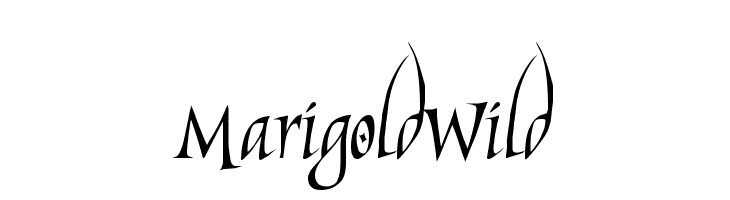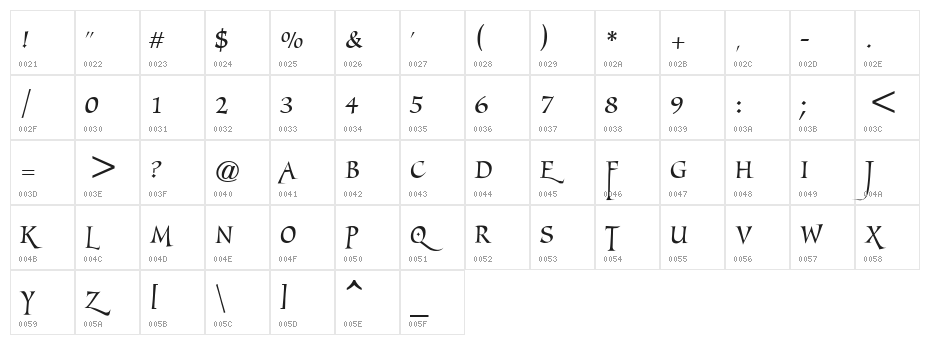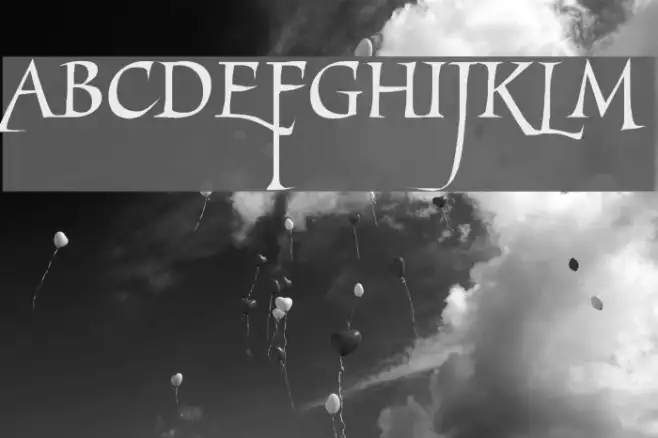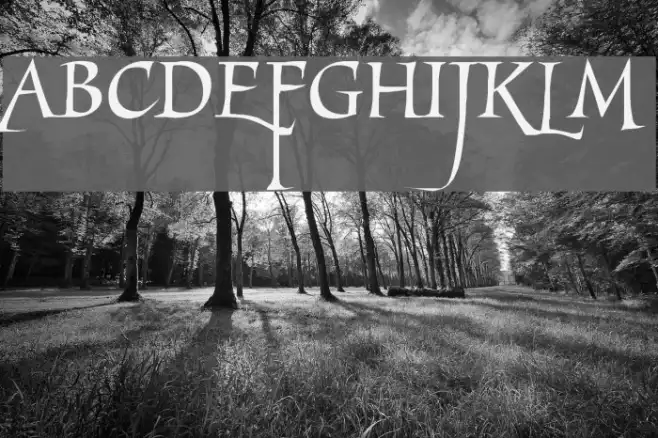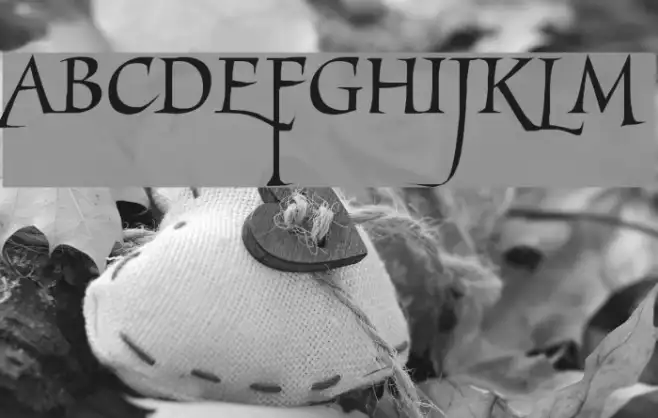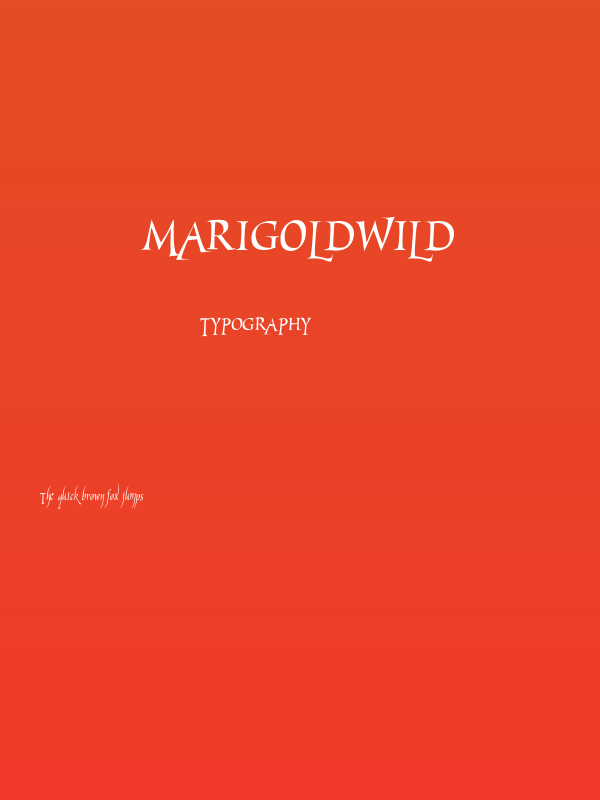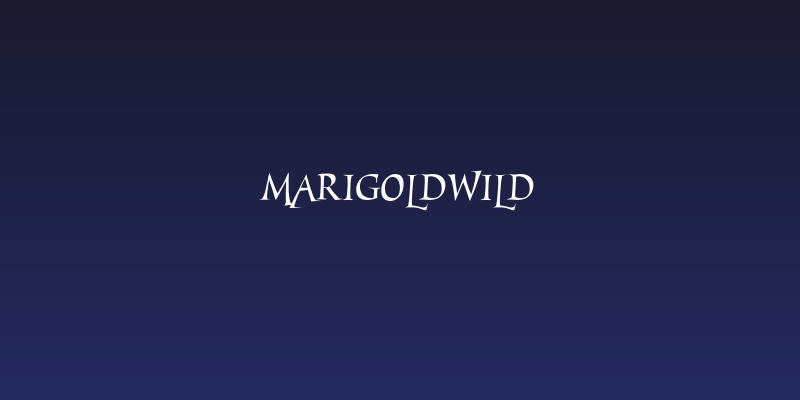
MarigoldWild Font
MarigoldWild Description
This font features a unique and artistic style with a calligraphic flair. The uppercase letters are bold and dynamic, with sweeping curves and sharp angles that give them a dramatic appearance. The lowercase letters are more delicate, with elongated strokes and elegant flourishes that add a touch of sophistication. The numerals are consistent with the overall style, maintaining the same artistic flair. Special characters are creatively designed, enhancing the font's decorative appeal. The font's overall aesthetic is both modern and vintage, making it versatile for various design projects.
| Overall Style | Modern, Vintage |
| Proposed Projects | Ideal for wedding invitations, branding, logo design, and artistic posters. |